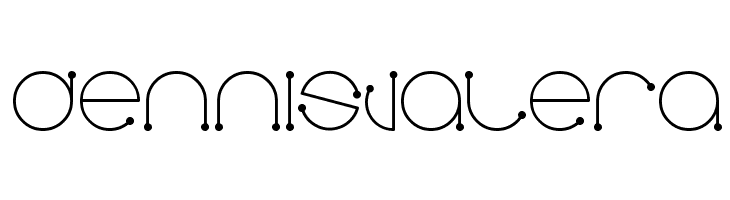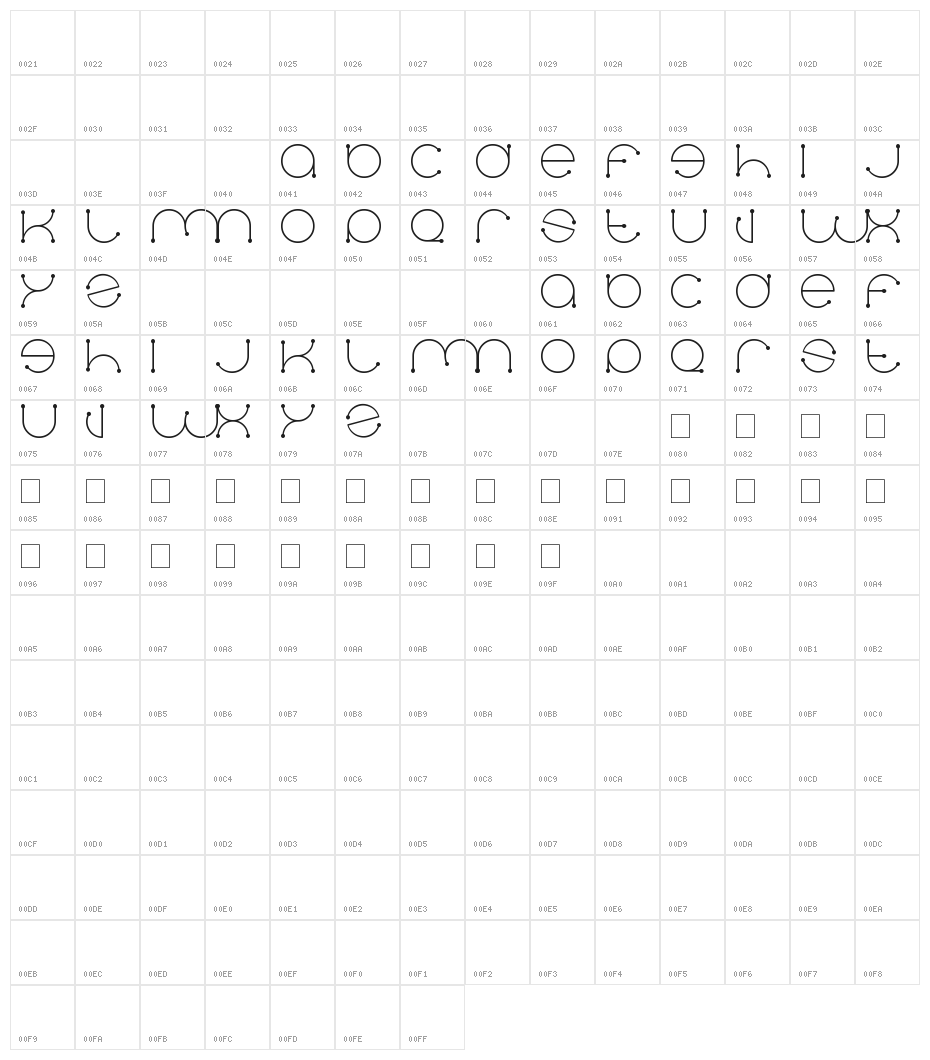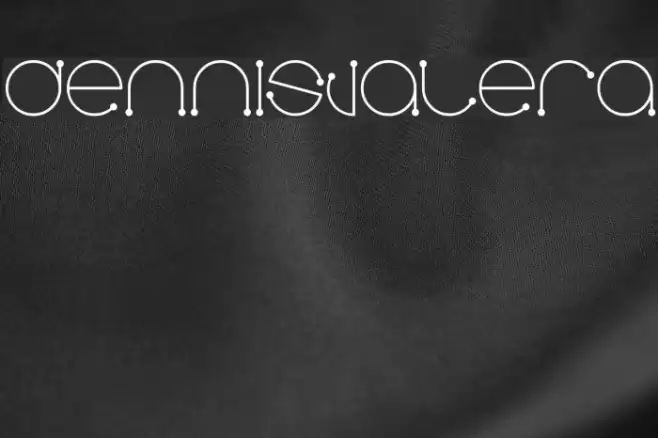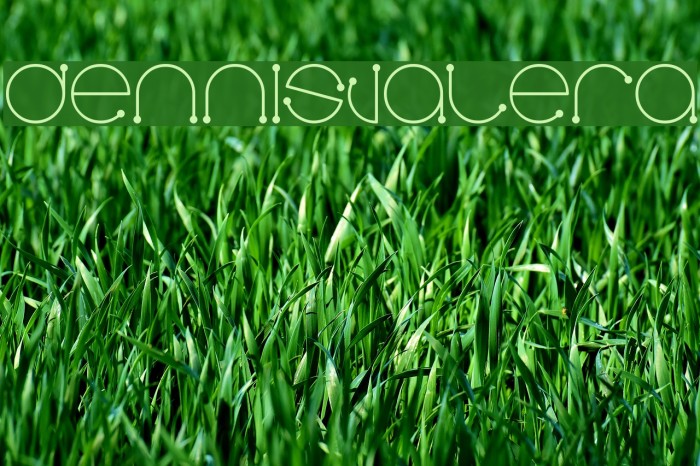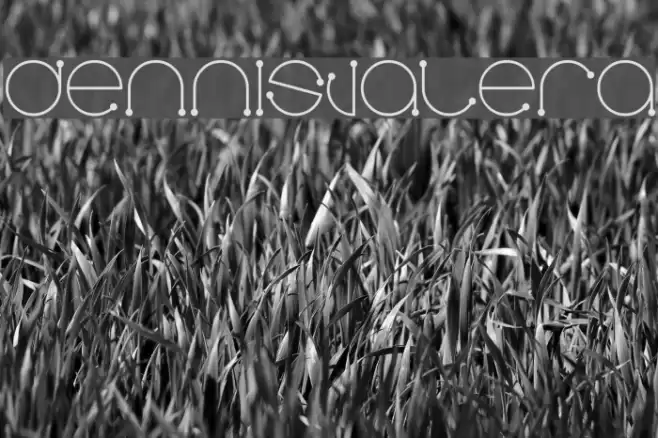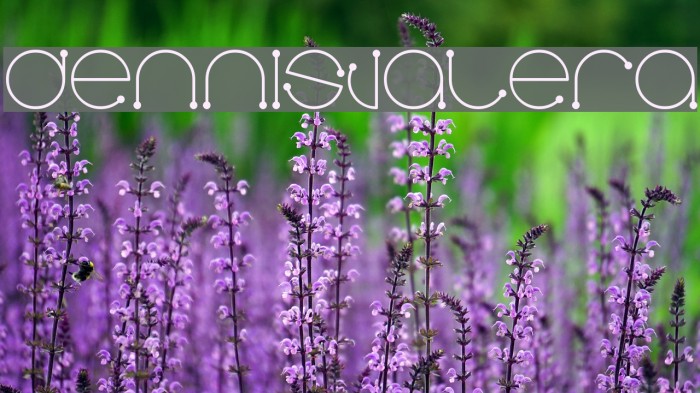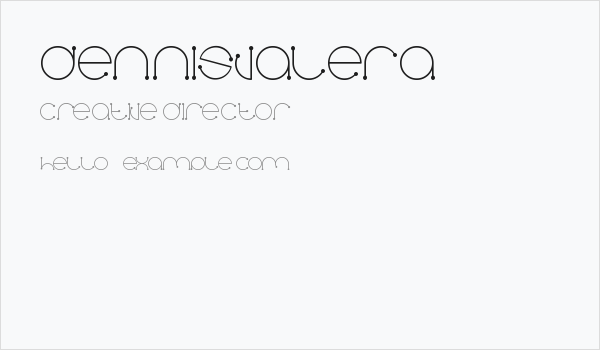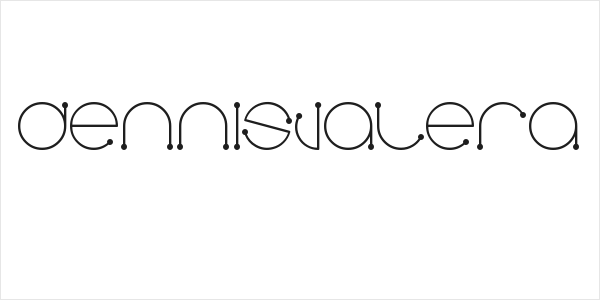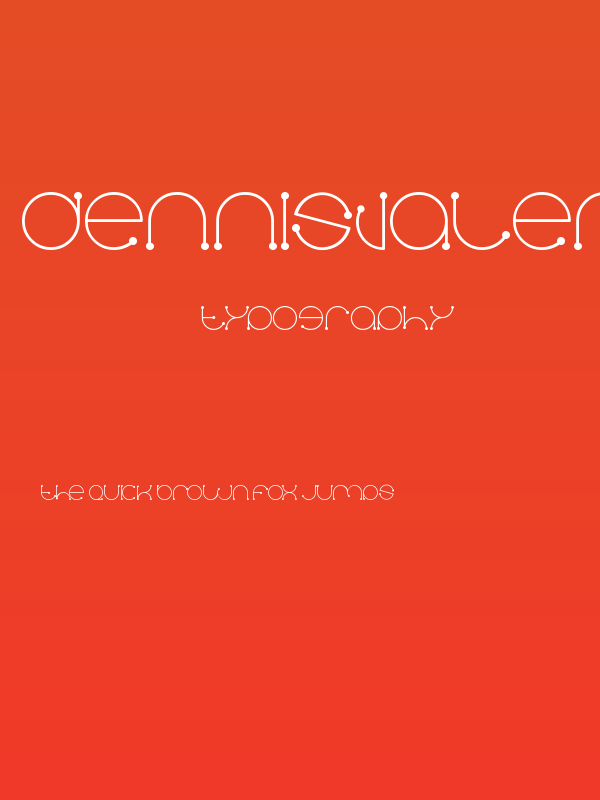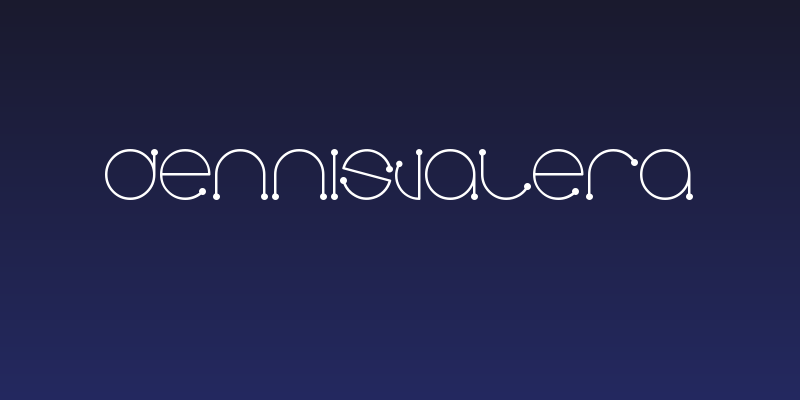
Dennisvalera Font
Dennisvalera Description
This font features a unique and modern design with a decorative flair. Each character is crafted with a combination of circular and linear elements, creating a futuristic and artistic appearance. The letters are connected with thin lines and small dots, giving the font a distinctive and playful look. The overall style is clean and minimalistic, yet it stands out due to its unconventional structure. The font maintains a consistent line weight throughout, which adds to its cohesive and harmonious aesthetic. It's ideal for projects that require a touch of creativity and modernity.
| Use Case | Logos, Posters, Branding |
| Proposed Projects | Ideal for creative projects such as logos, posters, and branding materials that seek a modern and artistic touch. |